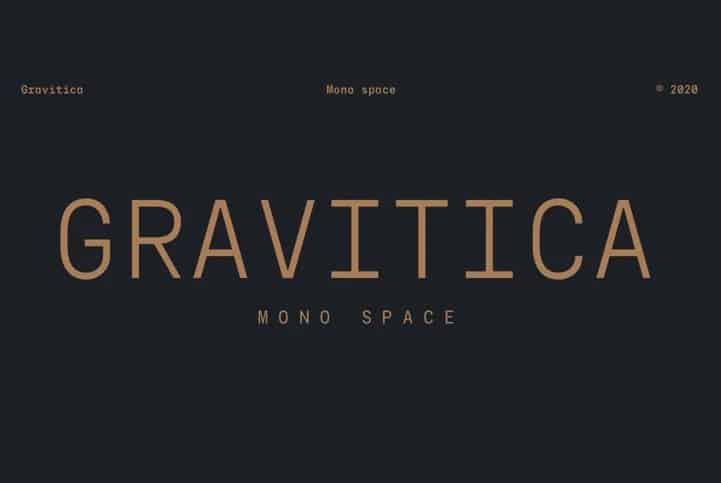
Gravitica Mono Sans Serif Font is a sans serif simple font perfect for adding a personal touch to your next project. It’s designed and shared by Ckhans Fonts. This font family consists of 18 styles (6 weights, 6 Italics, 6 Icons), in each of which there are more than 508+ glyphs. In the typeface, each weight includes extended language support, fractions, tabular figures, arrows, ligatures and more. Perfectly suited for graphic design and any display use.
Gravitica Mono Sans Serif Font